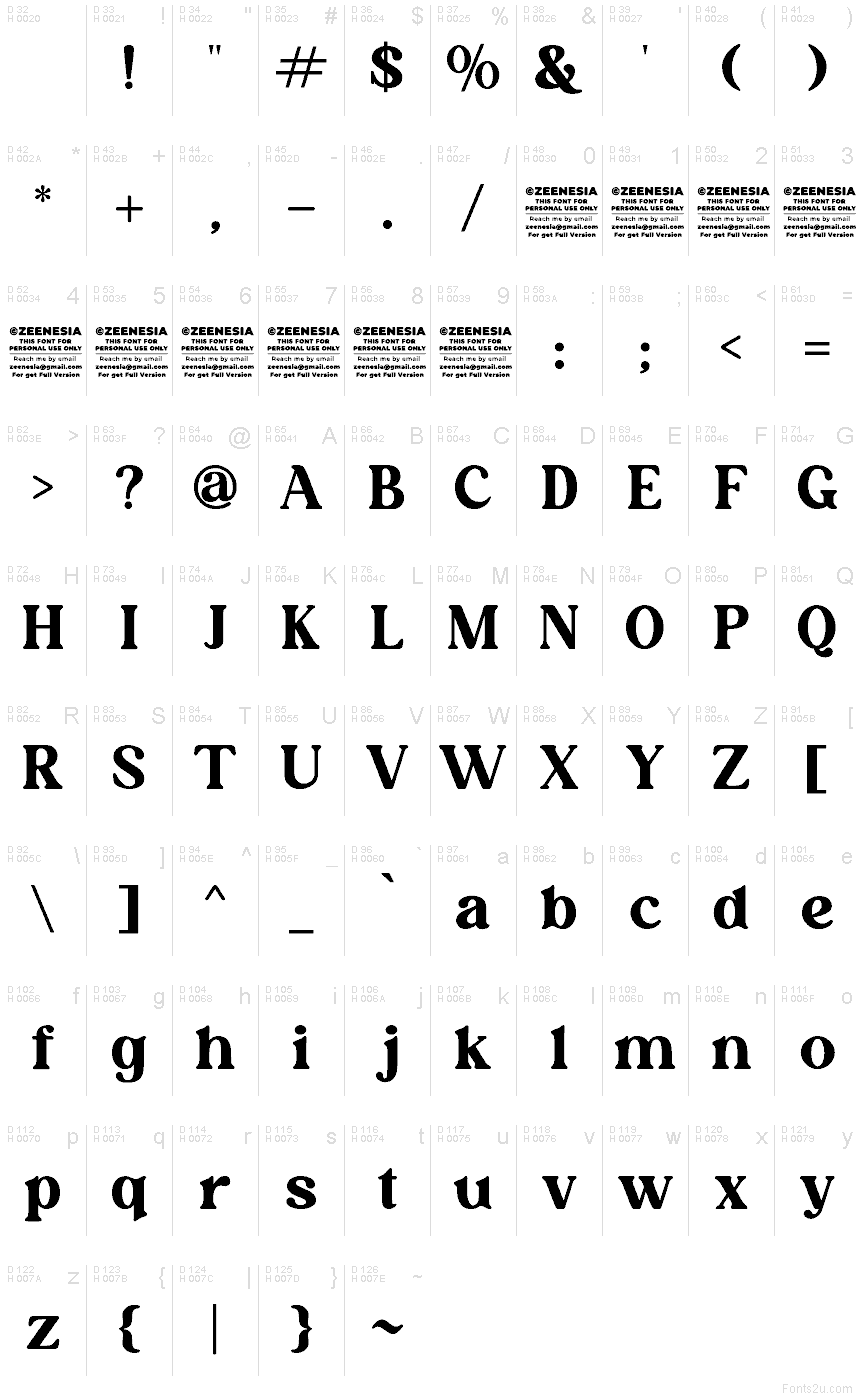
Millaris font by Zeenesia Studio is a bold, expressive serif with a decorative edge. Its distinctive curves and retro flair give it an elegant presence, making it stand out as an eye-catching display font suitable for headings or logotypes. With its dramatic appearance and flowing style, the font makes even shorter text captivating to readers.
Have fun with Millaris in website hero titles, stationery branding projects, packaging designs that need expressive labels, shirts and other apparel items, book covers for novels written for female audiences etc.